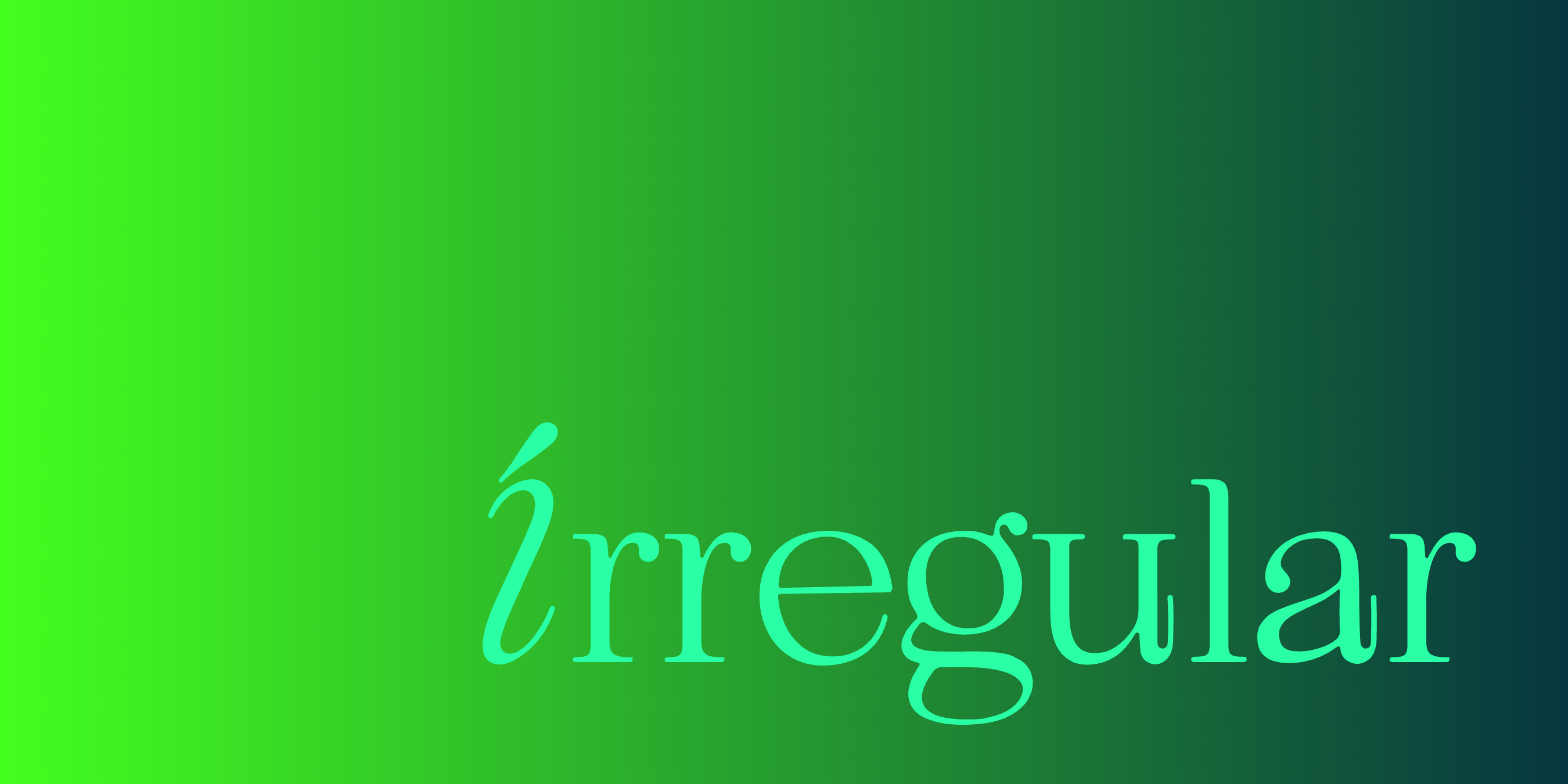
Organic Fonts for Natural and Lifestyle Branding
Irregular. On Purpose. Set in Kijs by Mojomox
Organic fonts are what designers reach for when a brand wants to feel natural, calm, and considered. Beauty products, food packaging, hospitality identities, slow-fashion lookbooks. The shapes need to feel grown rather than constructed. These eight Mojomox fonts hit that aesthetic, each with a different angle.
1. Bauhaus Soft
The flagship organic font in the catalog. Bold organic serif with just enough contrast to feel premium without losing warmth. Used widely in beauty, packaging, and lifestyle branding.
2. Vole
Geometric sans-serif with fluid counters. The fluid quality is what makes Vole read organic rather than strict. Strong for natural beauty and tech-adjacent consumer brands.
3. Cesty
Friendly rounded display font. The soft corners and warm proportions read organic without being illustrative.
4. Goji
Playful rounded sans-serif. The warmth makes it a natural fit for natural beauty, food, and lifestyle brands.
5. Skay
Handwritten bubble font with brush-ink character. The handmade quality reads organic directly. Strong for beauty, lifestyle, and craft-focused brands.
6. Auria Sans
Modern sans-serif with soft inner corners. The softness gives Auria an organic quality without illustrative flourish. Pairs well with Bauhaus Soft for body text.
7. Miox
Groovy bubble font with retro-inspired curves. The organic curves read warm and lively. Works for natural product lines that want energy.
8. Lace Rounded
Handwritten line font with playful organic character. The single-stroke construction reads handmade and intimate.
Pairing organic fonts
The strongest combinations pair an organic display font with a quieter organic body font. Bauhaus Soft with Vole. Cesty with Auria Sans. Skay with Roma. Avoid pairing organic display with strict-geometric body type; the contrast usually reads as a mistake rather than a deliberate choice.